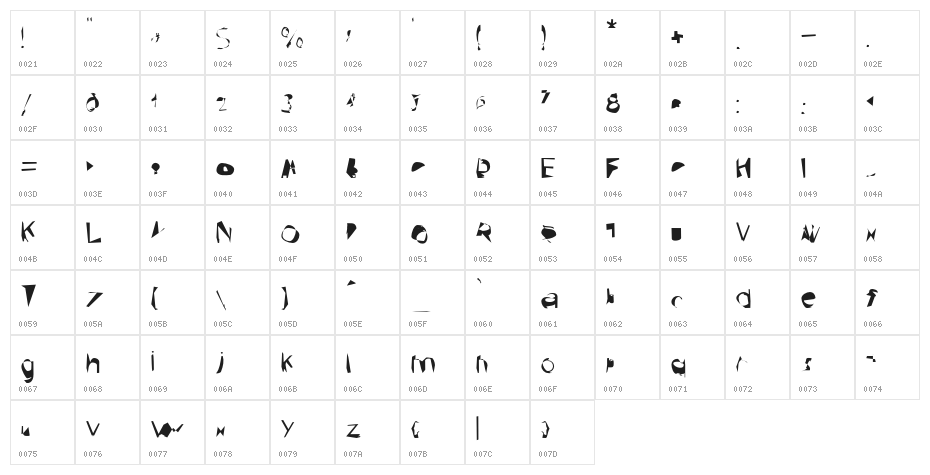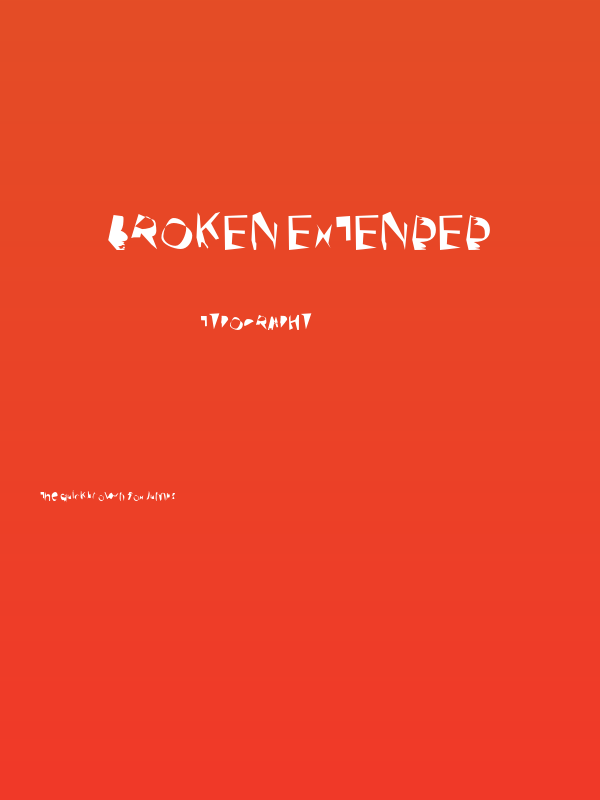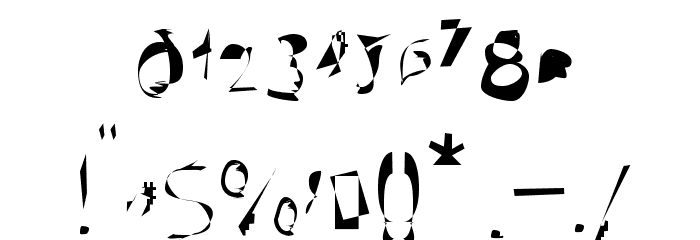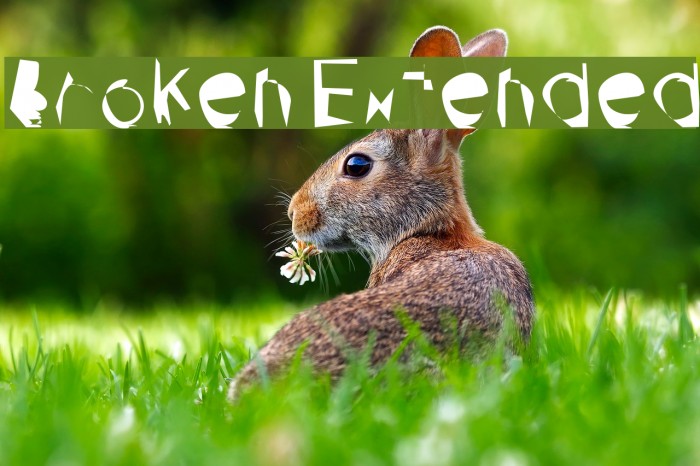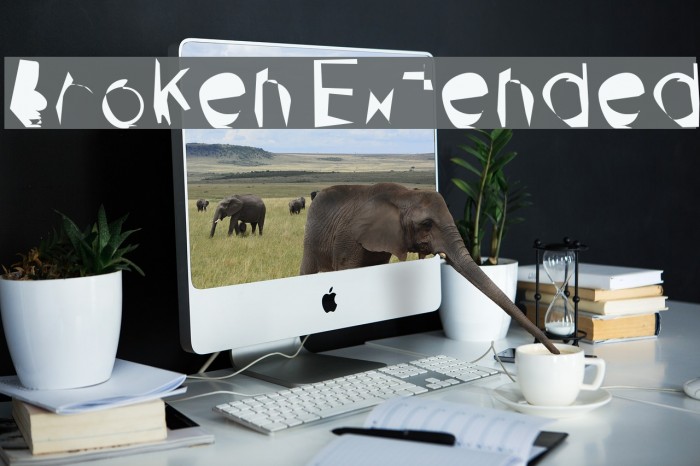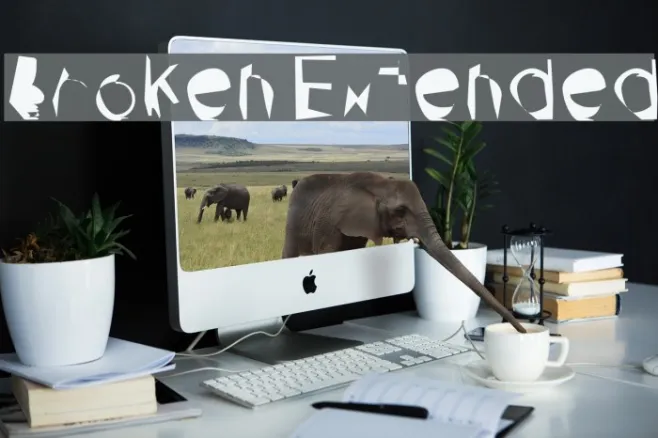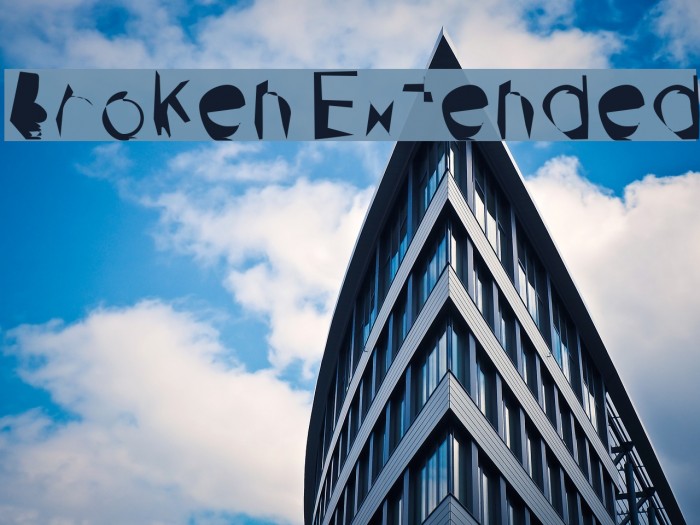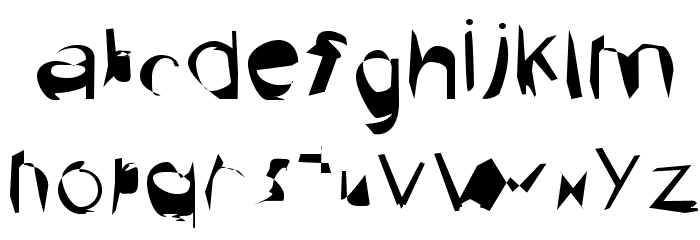
Broken Extended Font
Broken Extended Description
This font features a highly abstract and fragmented design, where each character appears as if it has been shattered or broken apart. The letters are composed of sharp, angular pieces that give a sense of chaos and movement. Despite the disjointed appearance, the characters maintain a consistent height and width, allowing for readability. The font's unique style is both modern and edgy, making it stand out in any design. The uppercase and lowercase letters share a similar fragmented aesthetic, while the numbers and special characters follow the same theme, adding to the overall cohesiveness of the font.
BROKEN-EXTENDED UPPERCASE
BROKEN-EXTENDED LOWERCASE
BROKEN-EXTENDED OTHER CHARS
| Overall Style | Modern, Edgy |
| Proposed Projects | Ideal for album covers, edgy posters, modern art projects, and any design requiring a bold, unconventional look. |